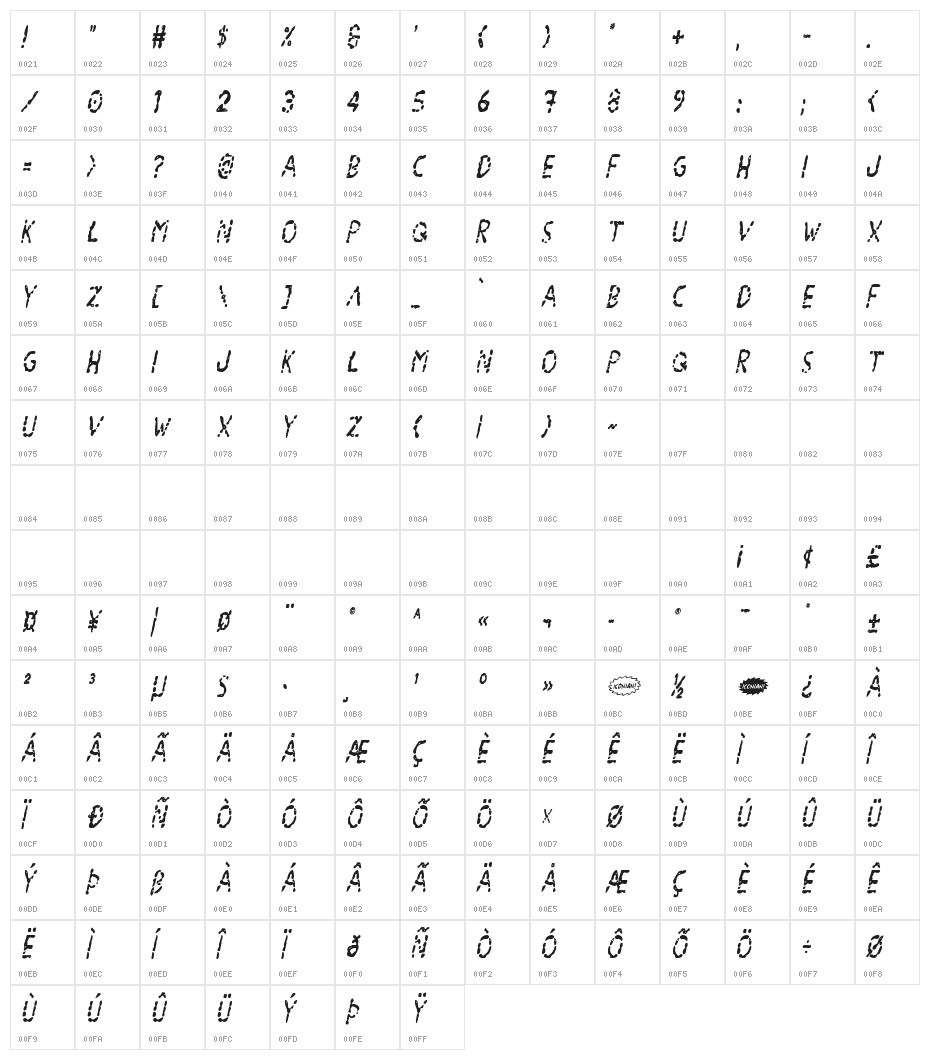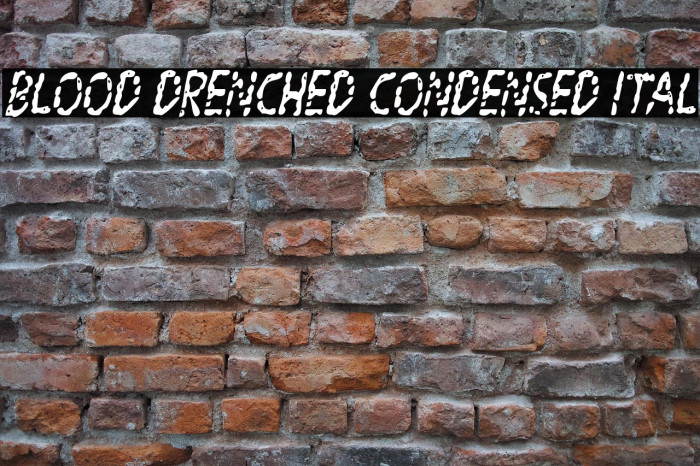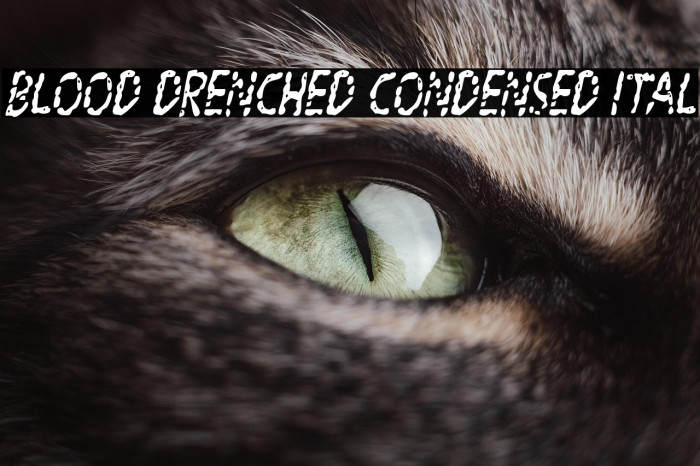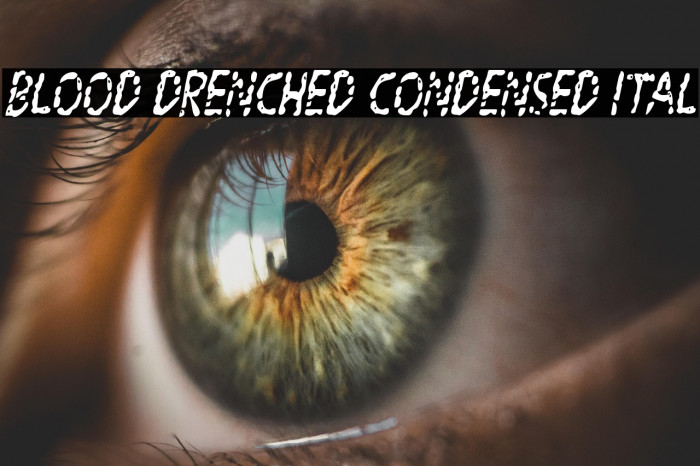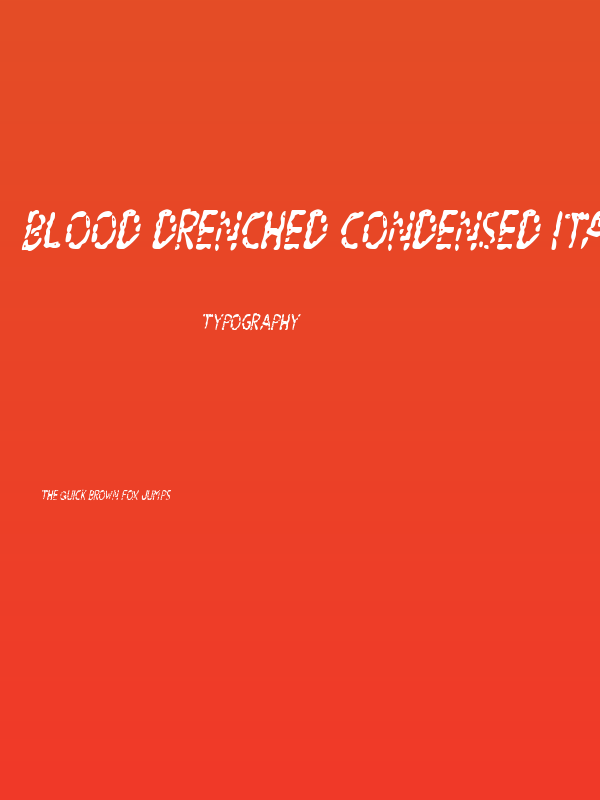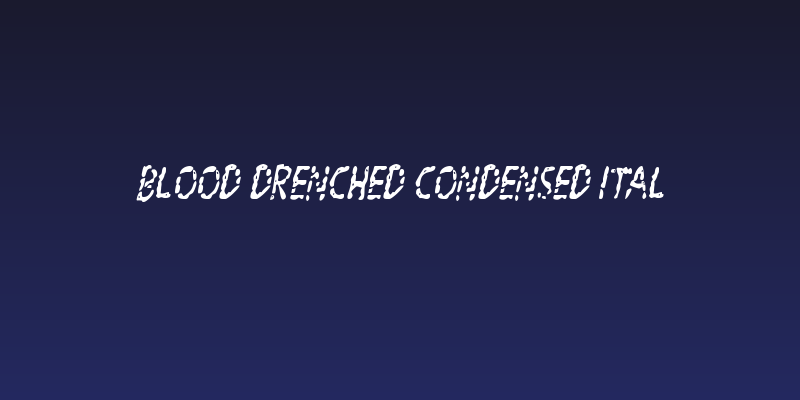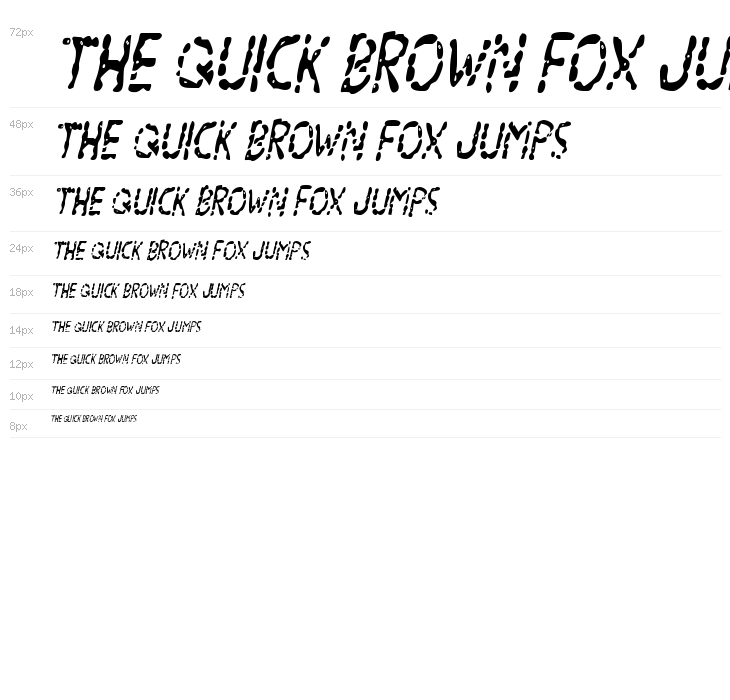
Blood Drenched Condensed Ital Font
Blood Drenched Condensed Ital Description
This font features a unique, dramatic style with letters that appear as if they are dripping or splattered, reminiscent of a blood-drenched effect. The characters are condensed and italicized, giving them a dynamic and intense appearance. The uppercase and lowercase letters maintain a consistent theme, with each character exhibiting a fluid, organic form. Numbers and special characters are designed with the same dripping effect, ensuring a cohesive look across all glyphs. This font is perfect for creating a sense of horror or suspense, making it ideal for Halloween-themed projects or any design that requires a bold, eye-catching aesthetic.
| Proposed Projects | Ideal for horror-themed posters, Halloween invitations, movie titles, and spooky event branding. |